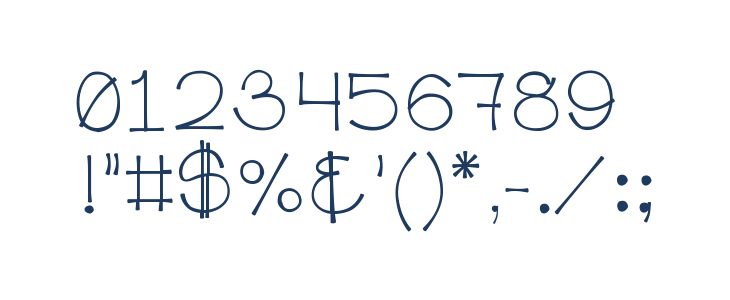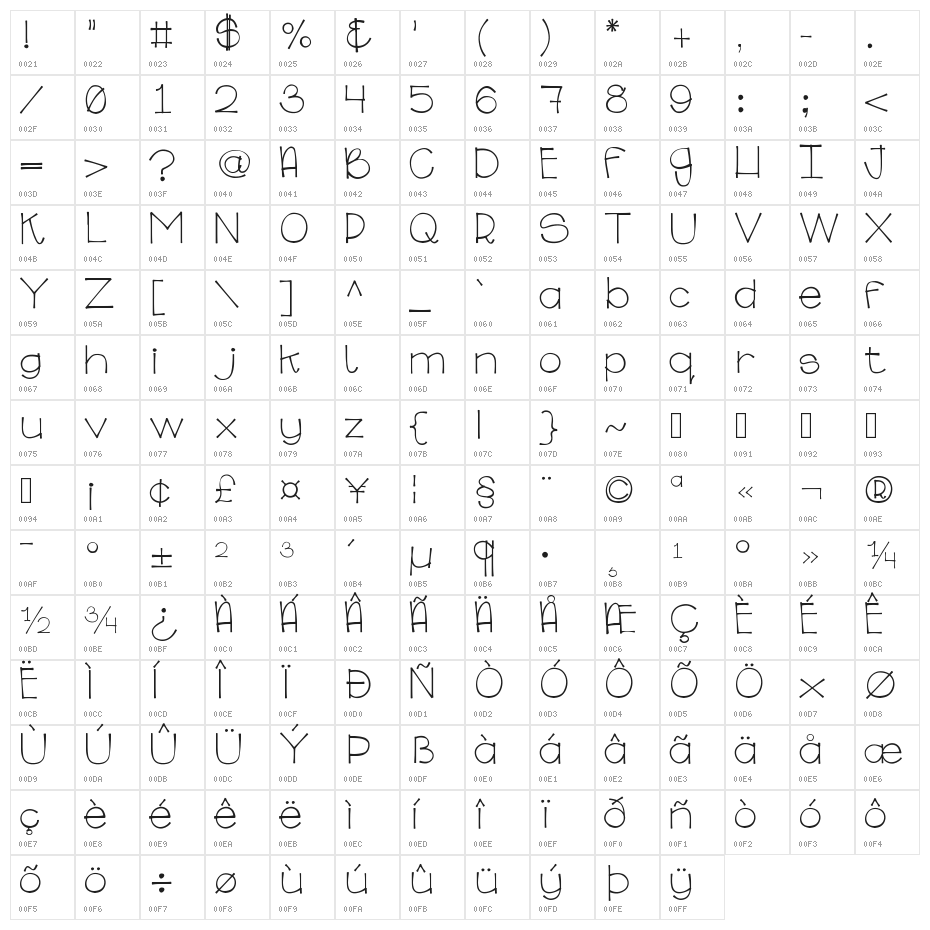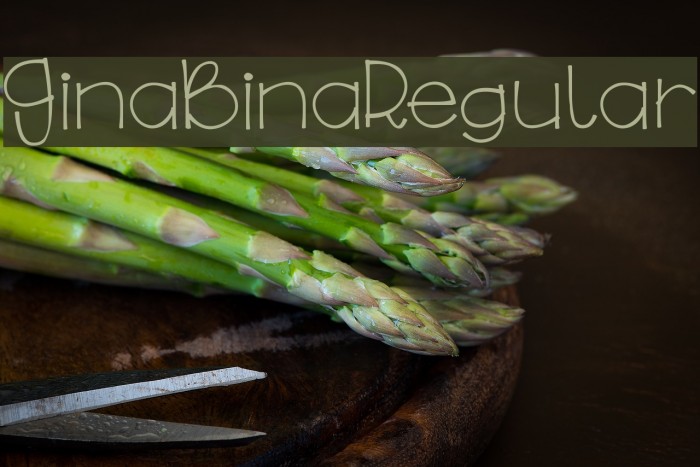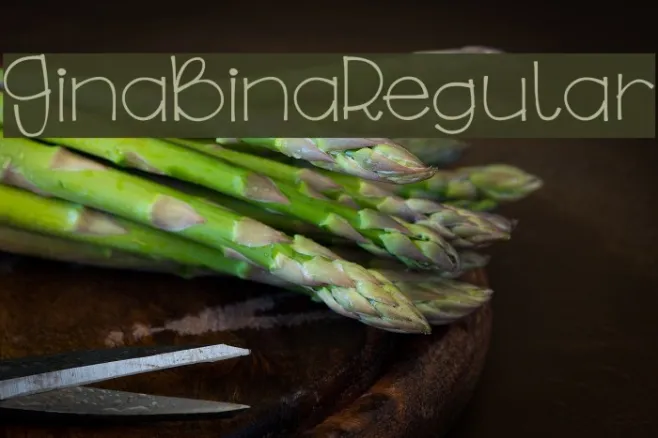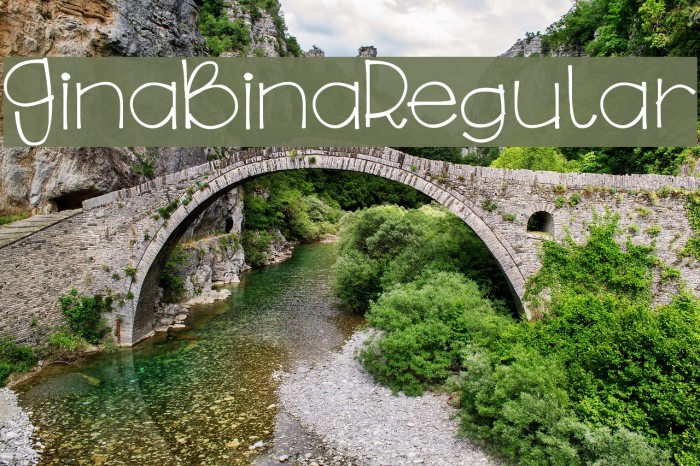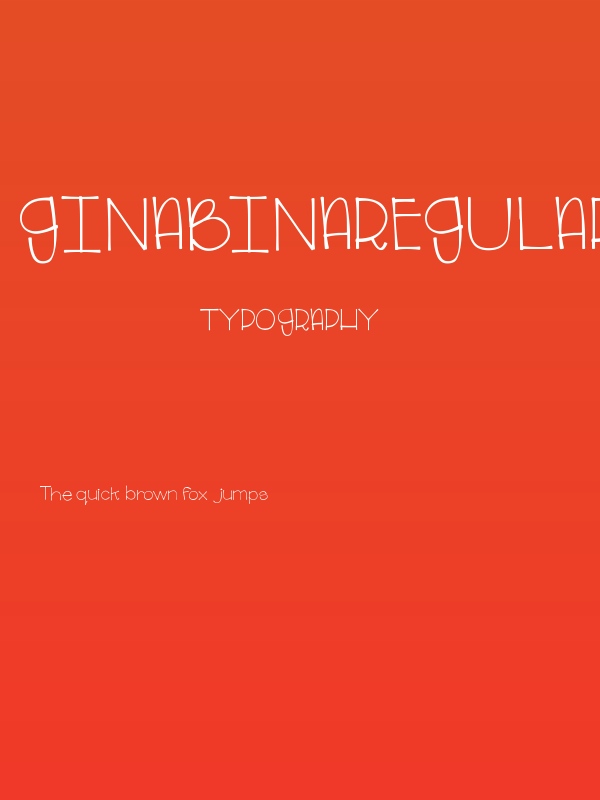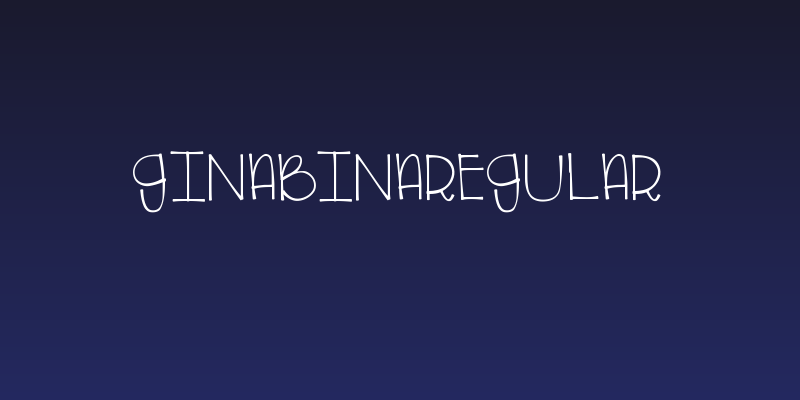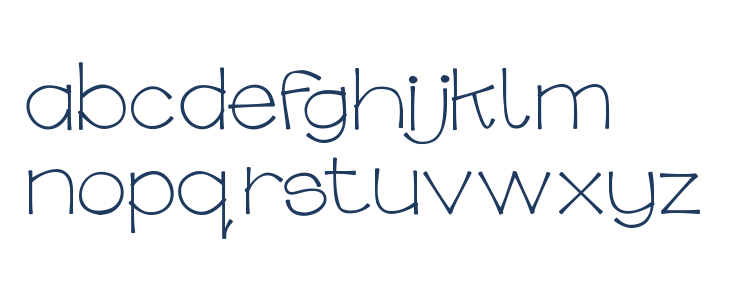
GinaBinaRegular Font
GinaBinaRegular Description
This playful and whimsical font features a unique handwritten style with a touch of elegance. The characters are crafted with a consistent stroke width, giving it a clean and modern appearance. The uppercase letters exhibit a charming mix of curves and straight lines, while the lowercase letters maintain a friendly and approachable look. Numbers and special characters are designed to complement the overall style, making it versatile for various uses. The font's distinct personality makes it suitable for creative projects, adding a personal touch to any design.
| Overall Style | Playful, Modern |
| Proposed Projects | Ideal for children's books, greeting cards, playful branding, and creative invitations. |